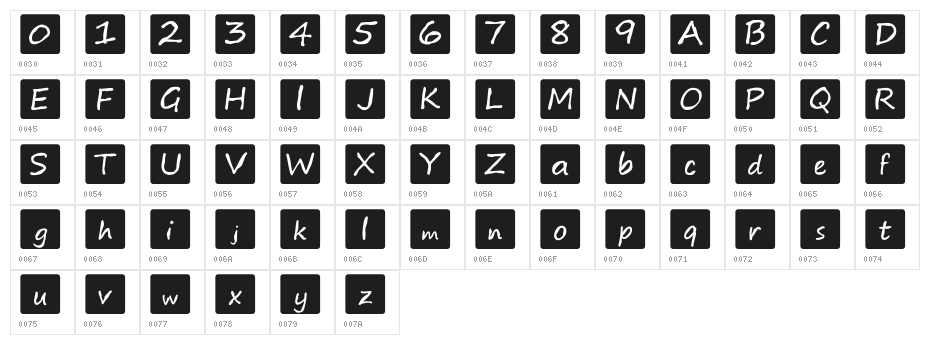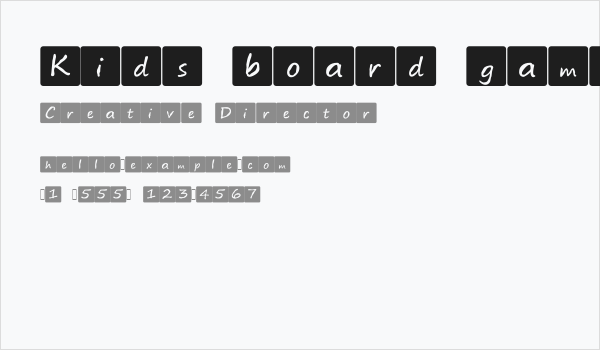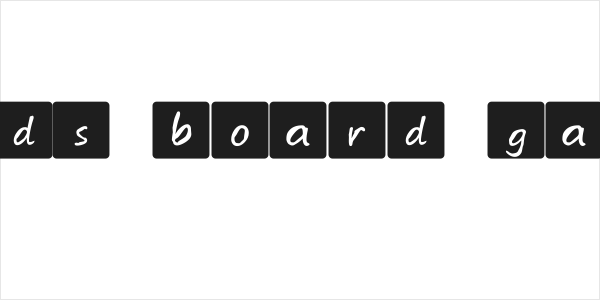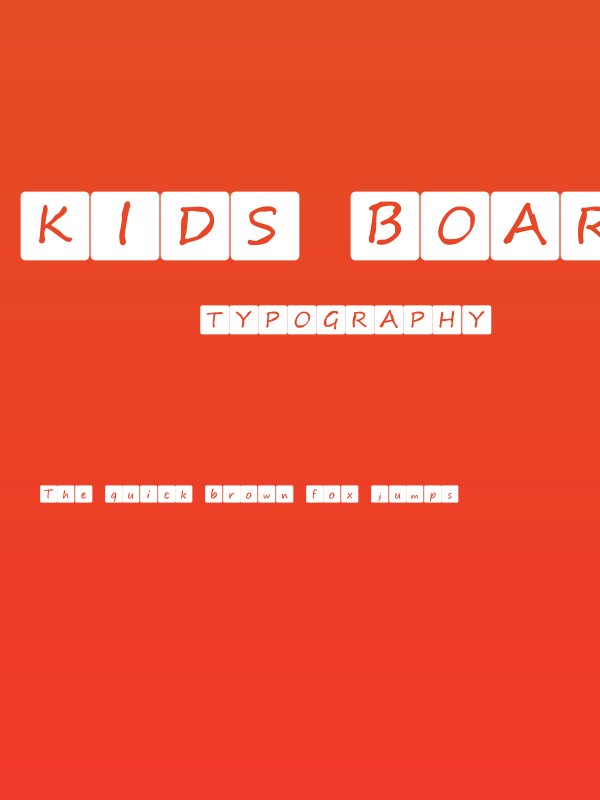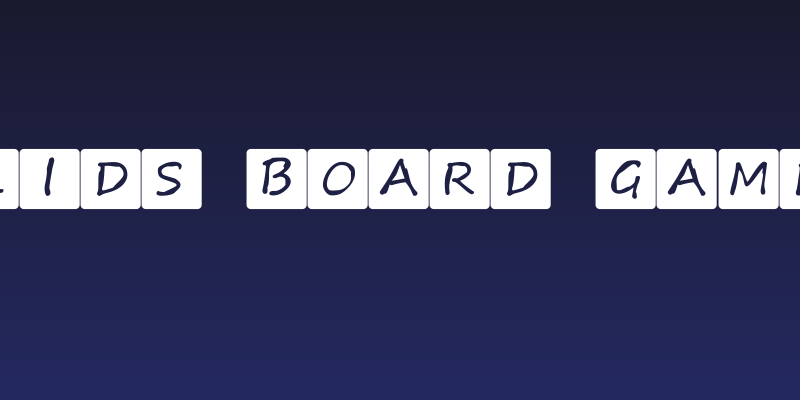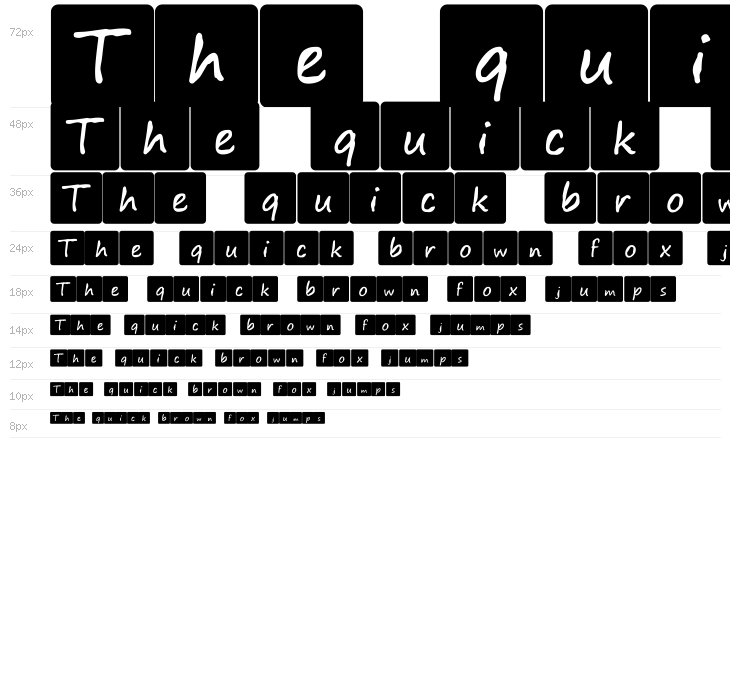
Kids board game Font
Kids board game Description
This playful and whimsical font features characters enclosed in square blocks, creating a fun and engaging appearance. The letters and numbers are styled with a handwritten, casual flair, giving them a lively and informal look. The strokes are smooth and slightly varied, adding to the font's charm and approachability. The overall design is reminiscent of chalkboard writing, making it ideal for projects aimed at children or educational materials. The font's unique style is both eye-catching and easy to read, making it suitable for a variety of creative applications.
| Use Case | Headlines, Logos, Educational Materials |
| Proposed Projects | Ideal for children's books, educational materials, board games, and playful branding. |